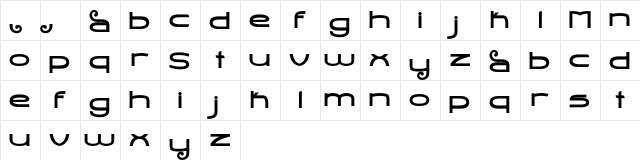
Stealth Magnum Bold Regular
Design Context for Stealth Magnum Bold Typeface
Stealth Magnum Bold is a composed and adaptable typeface that performs quietly and consistently across a wide range of design contexts. The heavy weight commands attention and anchors typographic hierarchies.
Pro Tip: Use Stealth Magnum Bold in both headline and body roles to test its range before committing to a single application.